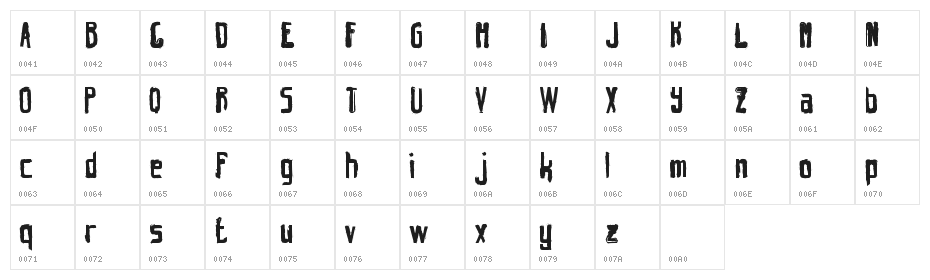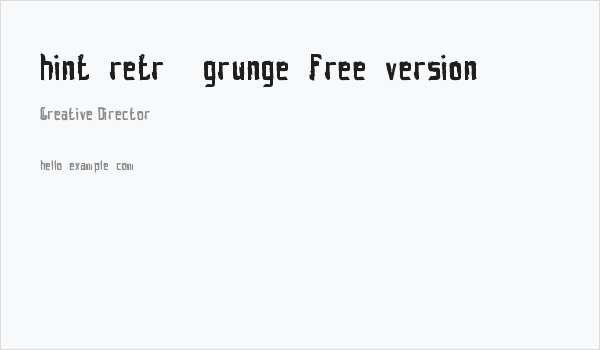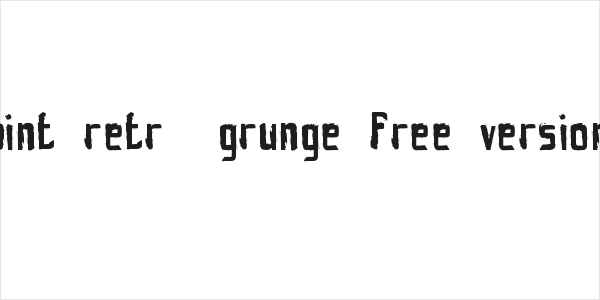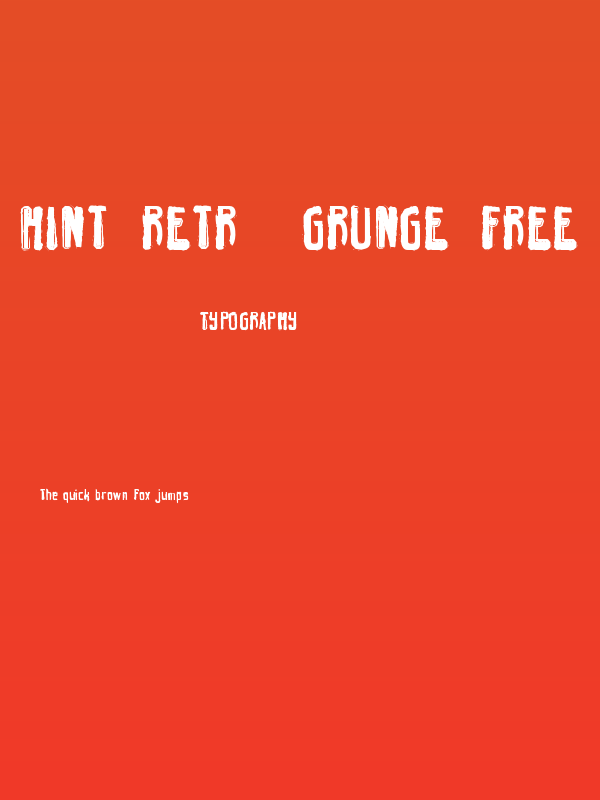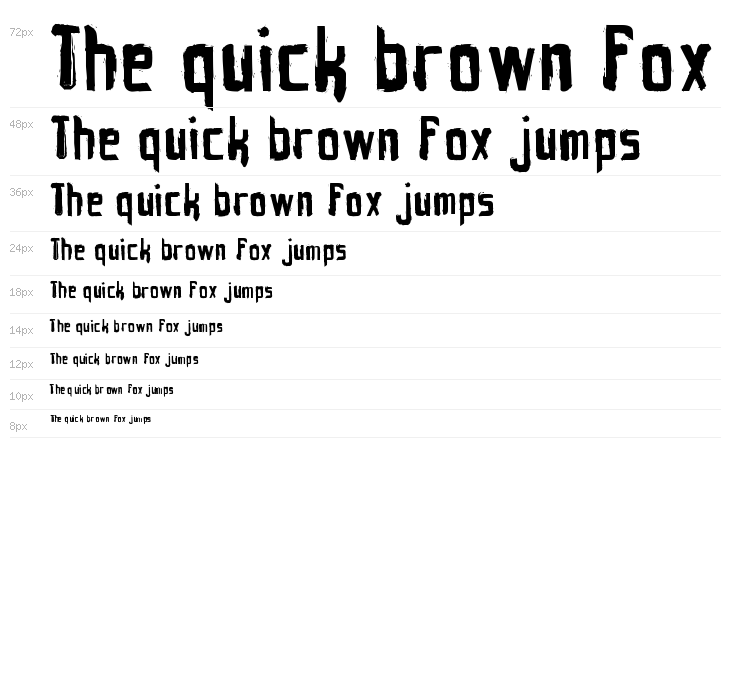
hint-retrò-grunge_free-version Font
hint-retrò-grunge_free-version Description
This font features a rugged, distressed appearance with uneven edges and a textured look, reminiscent of grunge or urban street art. The characters are bold and impactful, with a hand-drawn quality that adds a sense of authenticity and rawness. The uppercase and lowercase letters maintain a consistent style, with the uppercase being slightly more pronounced. The numbers and special characters follow the same aesthetic, ensuring a cohesive look across all text. This font is ideal for projects that require a bold, edgy statement, such as music album covers, posters, or branding for alternative or indie products.
| Overall Style | Grunge, Urban, Edgy |
| Proposed Projects | Album covers, posters, branding for alternative products, urban-themed designs. |